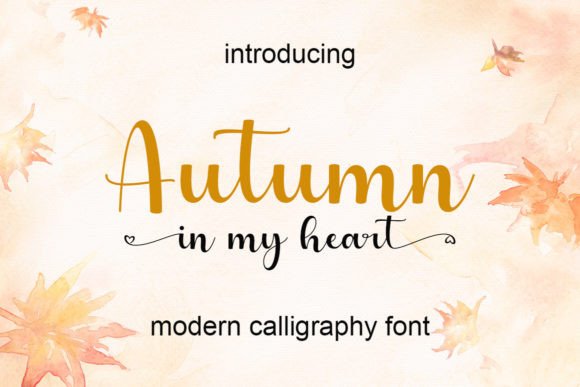
Fall in Love with Autumn in My Heart Font
I’ll never forget the design project that led me to discover the enchanting Autumn in My Heart font. I was working on a branding project for a cozy fall-themed cafe, and I was struggling to find the perfect handwritten font that captured the warmth and essence of the season. That’s when I stumbled upon this beautiful font, and it instantly stole my heart! ✨
So, what makes Autumn in My Heart so special? Let’s dive into the details!
• ✨ Unique and elegant handwritten style that’s perfect for logos, branding, and quotes
• ✅ Highly versatile and adaptable for various design projects, from clothing to websites
• 💕 Beautifully crafted letters with a touch of warmth and personality
• 🎨 Great for creating eye-catching headlines, titles, and captions
While Autumn in My Heart is an amazing font, there are a few things to keep in mind:
• 🤔 Some letters may have limited kerning options, which can affect text flow
• ⚠️ May not be suitable for very small font sizes or body text due to its decorative nature
The Story Behind Autumn in My Heart
The story behind Autumn in My Heart is one of passion and creativity. The font was designed by a talented type designer who wanted to capture the essence of the fall season in a beautiful, handwritten font. With its elegant letters and warm personality, it’s no wonder this font has become a favorite among designers and crafters.
Q: What type of projects is Autumn in My Heart suitable for?
Autumn in My Heart is perfect for logos, branding, quotes, clothing, tote bags, business cards, websites, and many more creative projects.
Q: Is Autumn in My Heart a difficult font to read?
No, Autumn in My Heart is a clear and elegant font, but it’s best used for titles, headings, and quotes rather than body text.